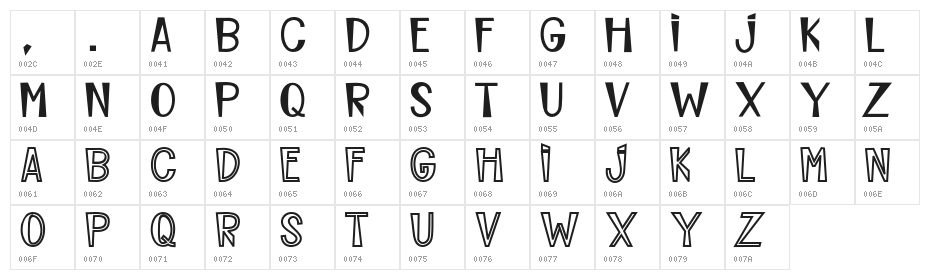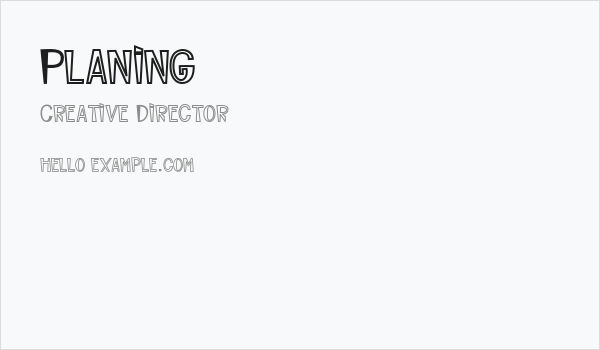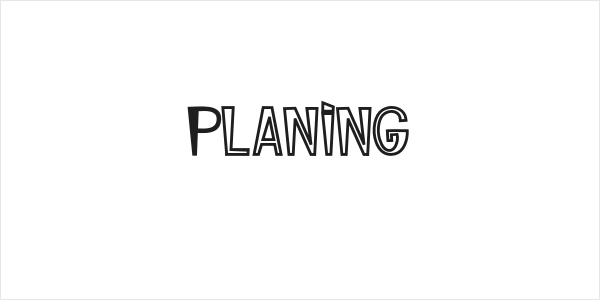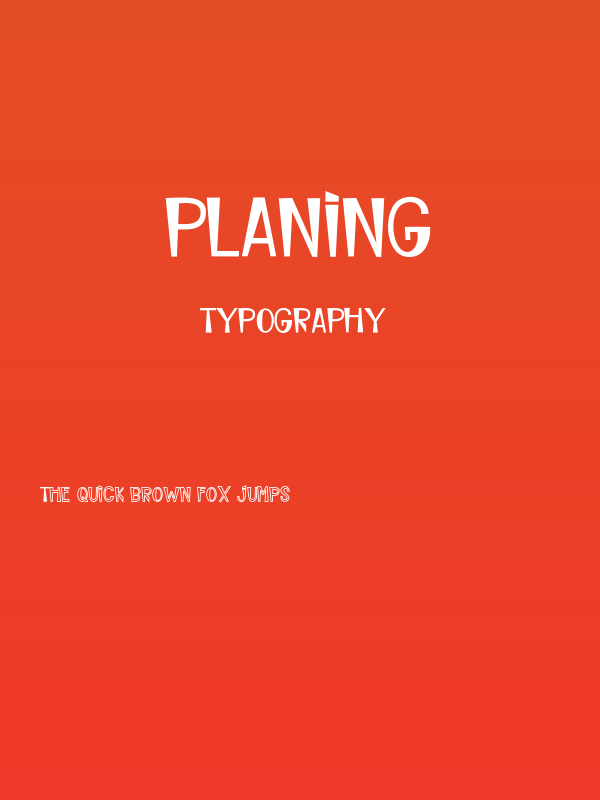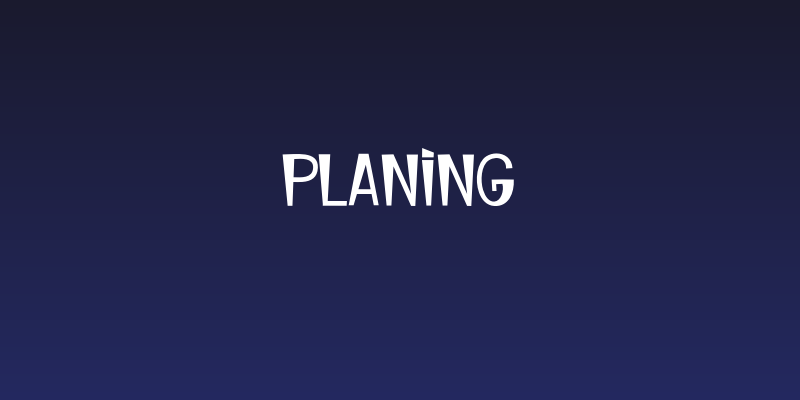
Planing Font
Planing Description
This font features a playful and bold design with a unique, hand-drawn appearance. The uppercase letters are characterized by their thick strokes and slightly irregular shapes, giving them a whimsical and artistic feel. The font includes both solid and outlined versions, adding versatility and depth to its style. The characters have a lively and dynamic quality, making them stand out in any design. The font's quirky and informal nature makes it ideal for creative projects that require a touch of fun and personality.
Overall StylePlayful, Artistic
Proposed ProjectsIdeal for children's books, posters, greeting cards, and playful branding projects.